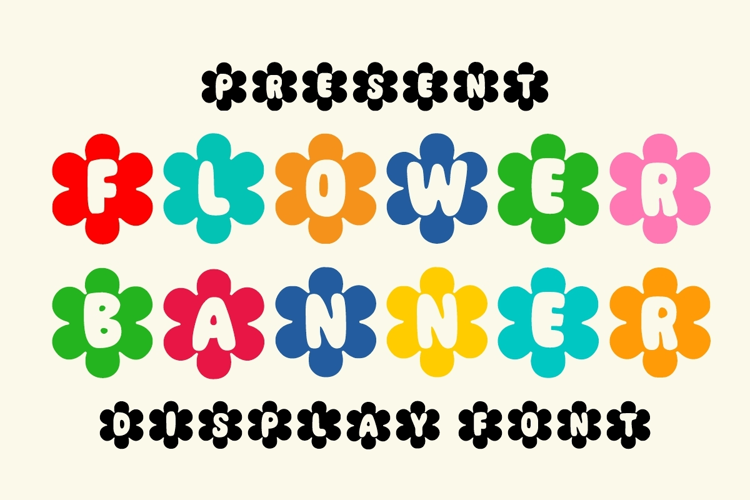
flower banner
FlowerBanner-Regular
Flower Banner is a retro-inspired decorative font that merges bold geometric lettering with playful floral shapes.
Each glyph is enclosed within a flower silhouette, giving it a cheerful, decorative structure perfect for creative and colorful compositions. The letters are rounded and evenly spaced, ensuring legibility despite the dense ornamental design.
The Flower Banner font is ideal for children’s projects, greeting cards, summer posters, and cheerful brand designs. Its vibrant and dynamic look captures a nostalgic 70s aesthetic with a modern touch, making it a standout option for headings, logos, and themed social media graphics.
The consistent proportions of each flower glyph create visual rhythm while maintaining balance and charm.